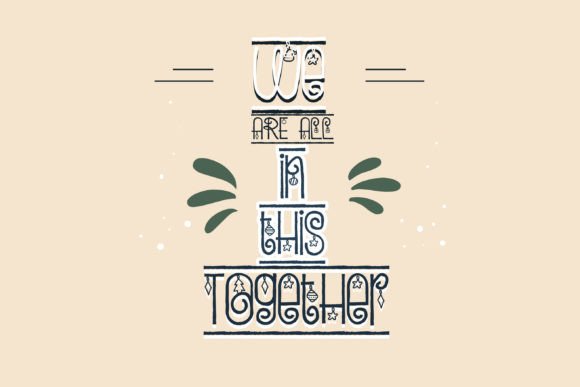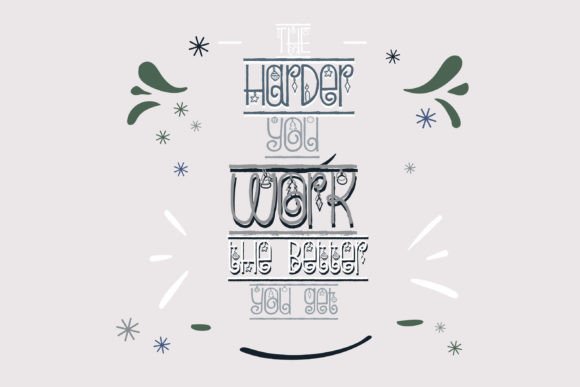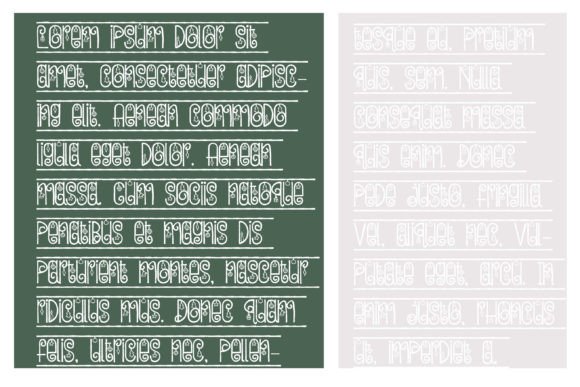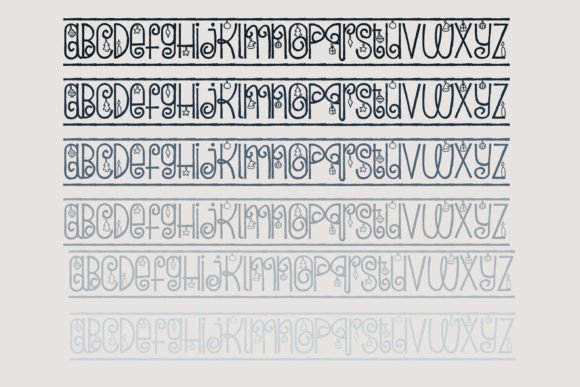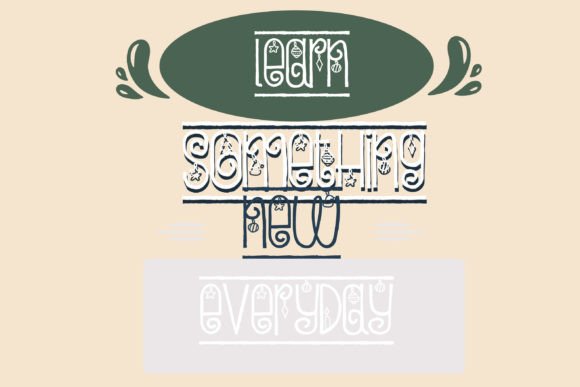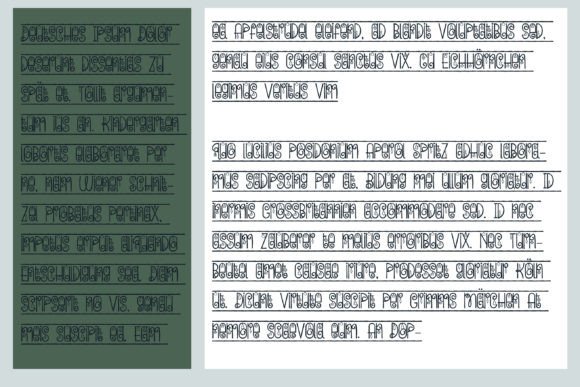
A Holiday Twist on Traditional Typography
As the holiday season approaches, designers are on the hunt for that perfect font to capture the magic of the season. Whether you’re creating a festive invitation, a merry greeting card, or a joyful holiday display, the right font can make all the difference. And for those looking to add a unique touch to their holiday designs, the Holiday Border Font is sure to be a standout.
This hand-crafted sans serif font features a texture print surrounded by borders with Christmas elements and ornaments, complete with a charming finish that gives the impression of being written by hand. With its whimsical feel and nostalgic charm, the Holiday Border Font is a valuable addition to any designer’s toolkit, offering endless possibilities for creative holiday projects.
Holiday Border Font Key Features
- Unique Characteristics: This font features intricate holiday-themed borders, ornaments, and decorations, adding a touch of festive charm to any design project.
- Font Style: Holiday Border Font offers a range of styles, including regular, bold, italic, and bold italic, allowing users to customize their designs according to their preferences.
Holiday Border Font Review
Overall, I found the Holiday Border Font to be a visually appealing addition to any holiday-themed design. Here are a few things that stood out to me: ✨
- Playful and festive vibe – The font is perfect for creating a fun and cheerful atmosphere, making it ideal for Christmas or New Year’s Eve designs.
- Variety of border options – The font comes with multiple border styles, allowing designers to mix and match to create a unique look.
- Easy to use – The font is relatively straightforward to apply, even for designers who are new to typography.
- Limited customization options – While the font has some nice border options, it would be great to have more flexibility in terms of color and size customization.
- Not suitable for all designs – The font is quite playful and festive, which may not be the best fit for more serious or elegant designs.
Overall, I think the Holiday Border Font is a great addition to any designer’s toolkit, especially during the holiday season. While it may not be perfect for every design, it’s definitely worth checking out for its unique and playful vibe.
The Holiday Border Font is commonly used for holiday-themed designs, such as Christmas, Halloween, and Easter cards, invitations, and decorations. It’s also used for wedding invitations and other special occasion designs.
To get the most out of the Holiday Border Font, experiment with different font styles and colors to match your design. Use it in combination with other design elements, such as images and shapes, to create a unique and eye-catching design. Don’t be afraid to get creative and try new things!
Alternatives to Holiday Border Font for Designers
Are there any font sizes or resolutions that are not recommended for use with the Holiday Border Font?
While the Holiday Border Font is designed to be versatile, we recommend avoiding font sizes below 12 points and resolutions below 72 dpi for optimal legibility. Additionally, we suggest using the font at a minimum of 300 dpi for high-quality print applications.